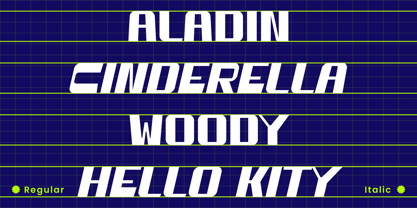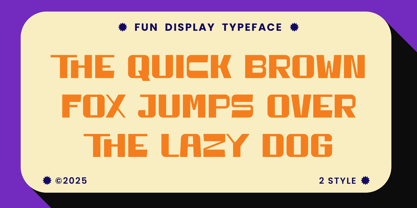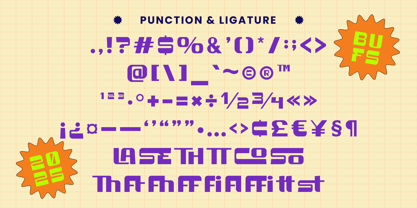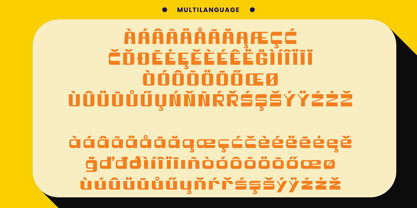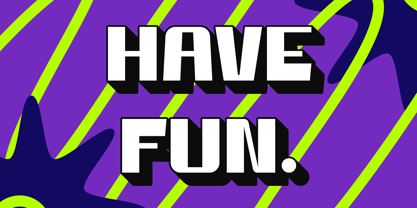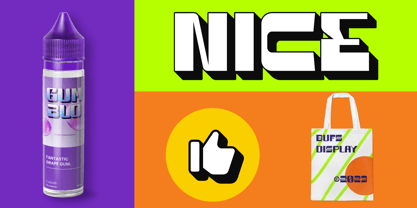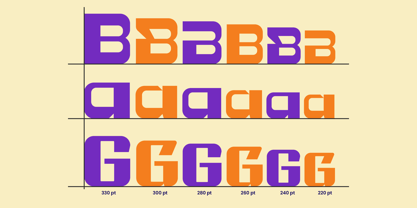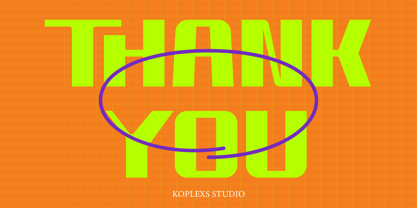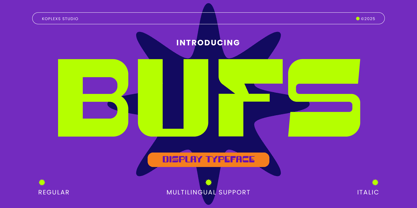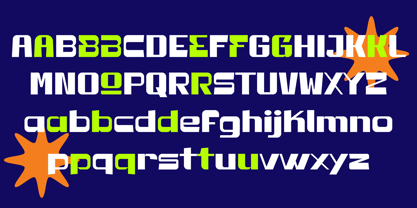
Bufs
Bufs Display Font
Bufs Font is a bold and futuristic sans serif display font created to grab attention and inject personality into your designs. Its sharp edges, geometric cuts, and dynamic flow make it a perfect cool font for projects that need to stand out. Available in Regular and Italic, Bufs Font combines versatility with striking style.
Whether you’re crafting a game font, a modern logo font, or a powerful headline font, Bufs delivers impact with every letter.
Features
• Styles: Regular & Italic
• Complete uppercase & lowercase set
• Multilingual support
• Punctuation, symbols & ligatures included
• Bold, geometric structure with futuristic energy
Suitable For
• Game font: titles, UI, esports branding
• Logo font: tech, lifestyle, entertainment identities
• Headline font: posters, covers, magazines
• Advertising font: campaigns, billboards, product launches
• Branding font: creative agencies, startups, product identity
• Packaging font: food, drinks, tech, and more
• Social media, merch, and all cool font design needs
Why Choose Bufs Font?
Bufs is not just another display font — it’s a creative weapon for designers who want boldness and uniqueness in their work. From branding font projects to packaging font designs, it’s built to make your visuals unforgettable.